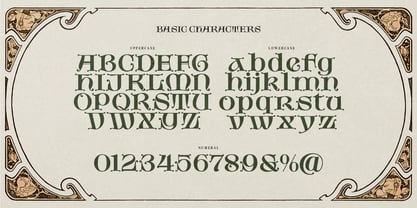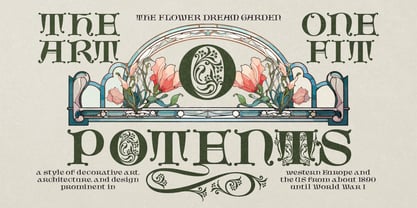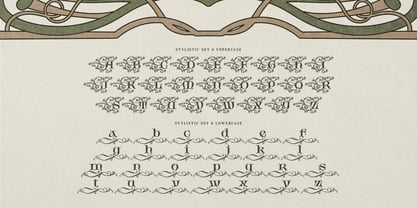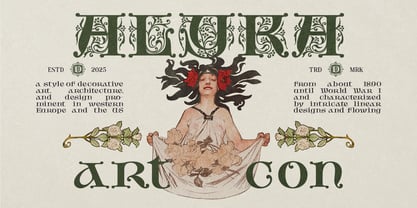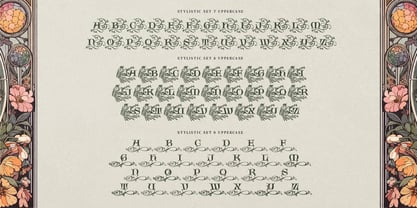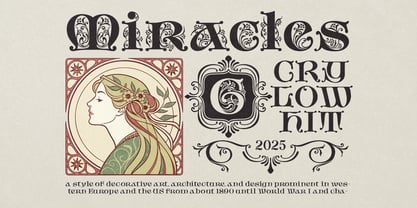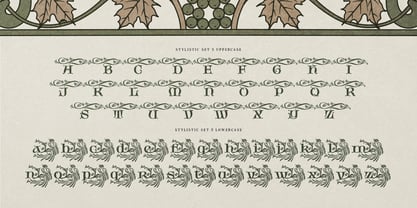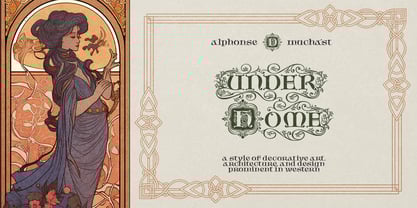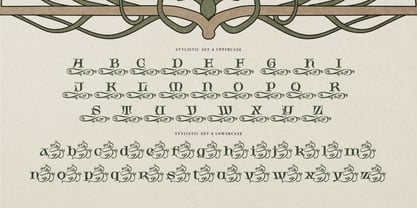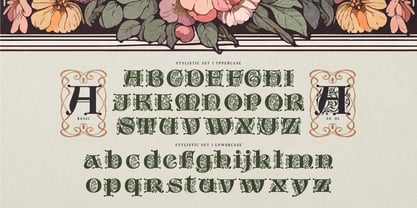
Dreams Mount
Dreams Mount Typeface: Weave Magic and Artistry into Every Word
Step into a golden era of design where art and nature intertwine. Introducing Dreams Mount, a breathtakingly elegant decorative font that captures the soul of the Art Nouveau movement.
If you've ever been mesmerized by the flowing, organic lines of an antique book cover, the romanticism of a vintage poster, or the timeless grace of classical forms, Dreams Mount is the typeface you've been waiting for. It is more than a font; it is an artist's toolkit designed to infuse your work with a level of beauty and sophistication that is simply unforgettable.
Inspired by the masters of Art Nouveau, Dreams Mount echoes the movement's obsession with natural forms, elegant curves, and intricate detail. Each letter flows with life, creating a harmonious rhythm that is both classic and deeply expressive.
A Universe of Creative Possibility at Your Fingertips
What makes Dreams Mount truly exceptional is its vast and versatile character. It is a typographic chameleon, ready to adapt to your most ambitious creative visions.
• An Astonishing 1002+ Glyphs: Your creative potential is limitless. This massive library includes a treasure trove of alternates, ligatures, and unique characters, ensuring that every design you craft is a bespoke masterpiece.
• Multiple Stylistic Sets: Transform your text with a single click. Go from a beautifully legible vintage style to a fully ornate display character wrapped in elegant, natural swirls. Whether you need subtle charm or a show-stopping headline, Dreams Mount delivers.
• True Art Nouveau Spirit: From its fluid letterforms to its ornate alternates, this font is a genuine tribute to the era of artistic innovation. It’s the perfect tool to bring an authentic vintage and decorative feel to modern design.
Where Dreams Mount Shines:
This font is built for projects that demand a touch of magic and distinction. It's the perfect choice for:
• Iconic Branding & Logos: Forge a memorable identity for artisanal brands, wineries, chocolatiers, bespoke jewelers, or creative studios.
• Exquisite Wedding & Event Invitations: Design stationery that feels like a precious heirloom, setting a tone of romance and elegance from the very first impression.
• Stunning Book Covers & Publishing: Grace the covers of fantasy novels, historical fiction, poetry collections, or art books with typography that tells a story.
• Elegant Packaging & Labels: Turn your product packaging into a work of art that customers will want to keep, promising the quality within.
• Decorative Art & Posters: Create mesmerizing posters, art prints, and signage that capture the romantic spirit of the early 20th century.
Don't just choose a font. Choose an experience. Choose Dreams Mount, and let your designs echo with the timeless beauty of the Art Nouveau masters.